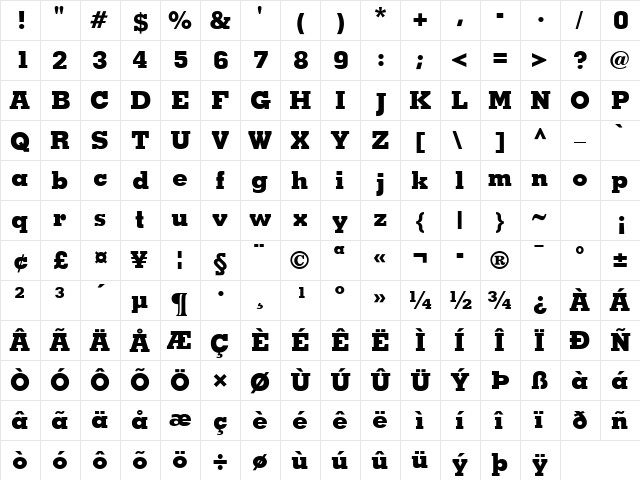
Memphis Extra Bold
Design Context for Memphis Typeface
Memphis offers clean, dependable letterforms without strong stylistic allegiance, making it a practical choice for designers who need flexibility. The heavy weight commands attention and anchors typographic hierarchies.
Pro Tip: Use Memphis in both headline and body roles to test its range before committing to a single application.